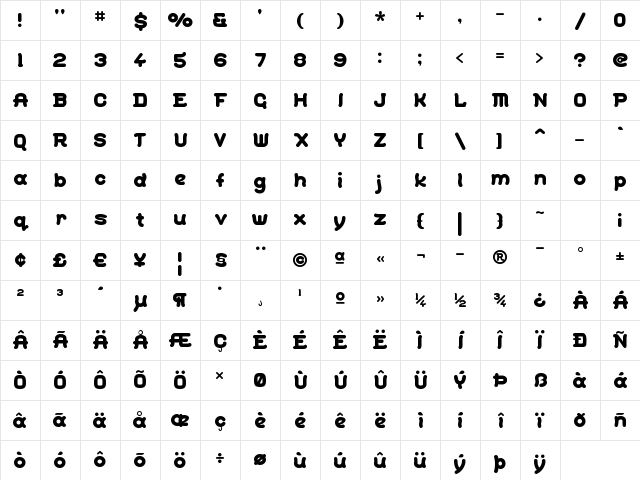
Gohan Regular Free Font
Gohan Regular
Gohan Family
Complete Gohan Regular glyph index. Displaying only characters natively supported by Gohan Regular font.
Design Context for Gohan
Gohan is a composed and adaptable typeface that performs quietly and consistently across a wide range of design contexts.